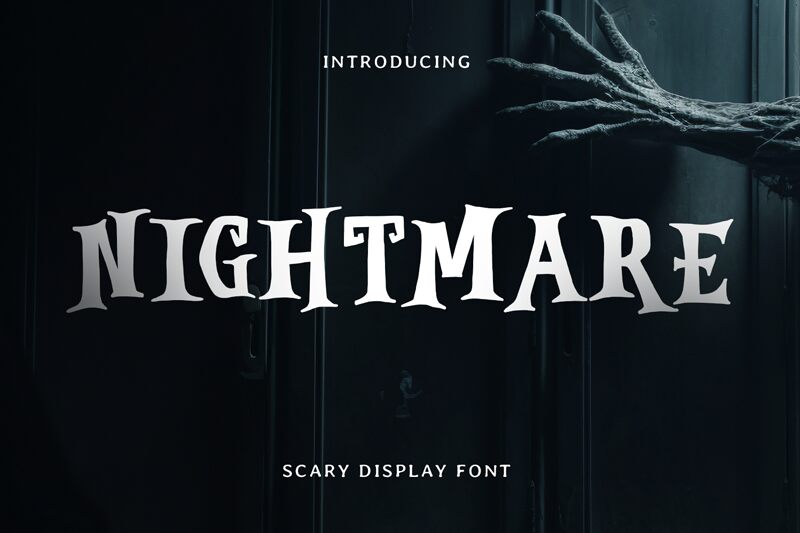
NIGHTMARE
Nightmare font by Mozatype is a free Halloween display font that leans into eerie theatrics without losing legibility. Tall, tapering forms flare like candle flames, while little horned curls and inky, woodcut edges add a storybook-spooky vibe. The rhythm is tight and punchy, so headlines snap even at a distance, and the irregular curves keep it feeling handmade rather than sterile.
Using Nightmare, seasonal graphics instantly read as haunted—great for haunted house posters, party invites, candy labels, yard signs, YouTube thumbnails, and social promos. This free font shines big and bold; pair it with a clean sans for details and keep body copy lighter to let those creeping serifs breathe.